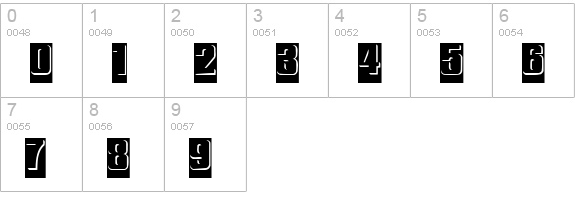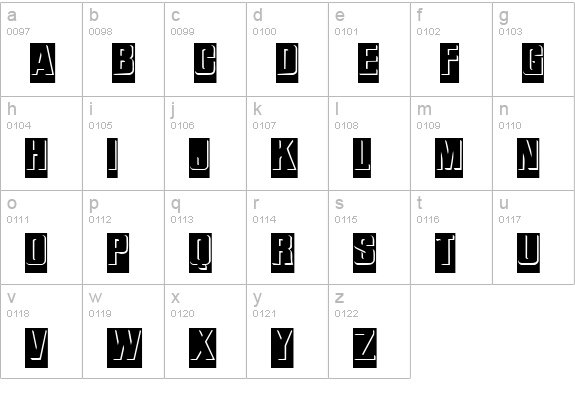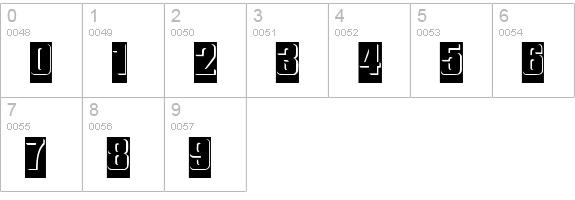
ReliefInReverse Regular Font Details
ReliefInReverse Regular is the standard, neutral variant in the ReliefInReverse typeface family \xE2\x80\x94 well suited to general body text, paragraphs, and standard typographic work.
ReliefInReverse Regular font is a stunning typeface that effortlessly combines elegance with a touch of playfulness. This font is the perfect choice for those seeking a versatile and eye-catching design that can be used in a variety of projects, from logos and branding to posters and websites. With its clean lines and well-balanced proportions, ReliefInReverse Regular font exudes a sense of professionalism and sophistication. Its unique reverse effect adds a twist to traditional typography, making it stand out from the crowd. But what makes ReliefInReverse Regular font even more appealing is that it is freely available to download at FontsMarket.com. That means you can enjoy this exceptional font without any cost or restriction. Whether you're a professional designer or a hobbyist, having access to high-quality fonts for free is a game-changer. So why wait? Head over to FontsMarket.com and download ReliefInReverse Regular font today. Elevate your designs with this visually striking typeface and make a lasting impression on your audience.